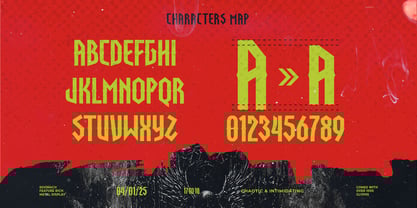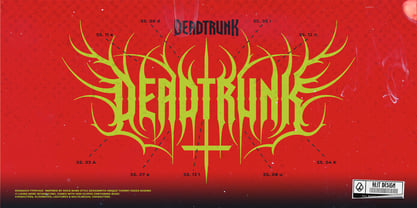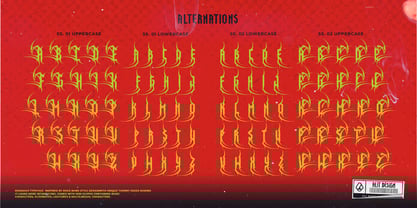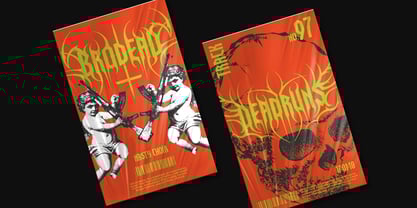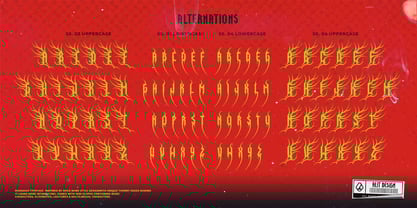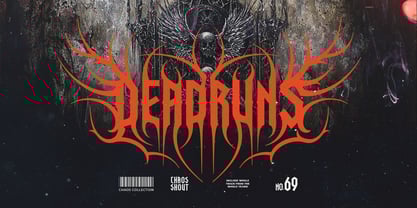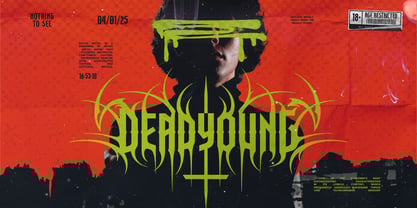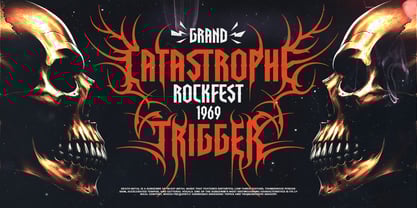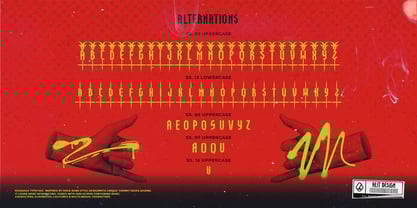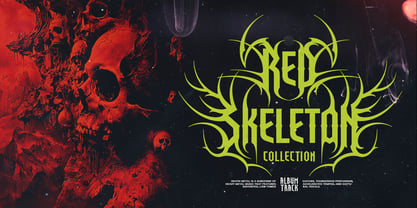
Roomach
by Alit Design
The Roomach Font Family was designed by Alit Suarnegara and published by Alit Design. Roomach contains 1 styles. More about this family
Roomach Typeface: The Ultimate Death Metal Font
Unleash chaos and modern darkness with Roomach Typeface—a bold, unapologetic death metal font forged in the fires of hell. Featuring sharp thorns, menacing horns, and a contemporary edge, this typeface is the perfect fusion of brutality and sophistication. Whether you’re creating album covers, band logos, merchandise, or anything else that screams rebellion, Roomach brings the heat.
Features
• 1000 Characters: A vast arsenal of glyphs to ensure every project gets its unique mark.
• Many Alternatives: Unlock creative freedom with diverse letter variations for a customized look.
• Ligatures: Seamless combinations for a natural, cohesive design flow.
• Swashes: Dramatic strokes that amplify the font’s aggressive and artistic vibe.
• Multilingual Support: Embrace the global stage with support for multiple languages.
Roomach Typeface is more than a font—it’s a statement of power, chaos, and modern artistry. Redefine death metal aesthetics with its intricate, hellish design and modern usability.
Perfect for:
• Death Metal Band Logos
• Dark-Themed Posters
• Album Covers
• Merchandise Design
• Gaming Titles
Let your creations rise from the abyss with Roomach Typeface—where hellish beauty meets modern design.
Designers: Alit Suarnegara
Foundry: Alit Design